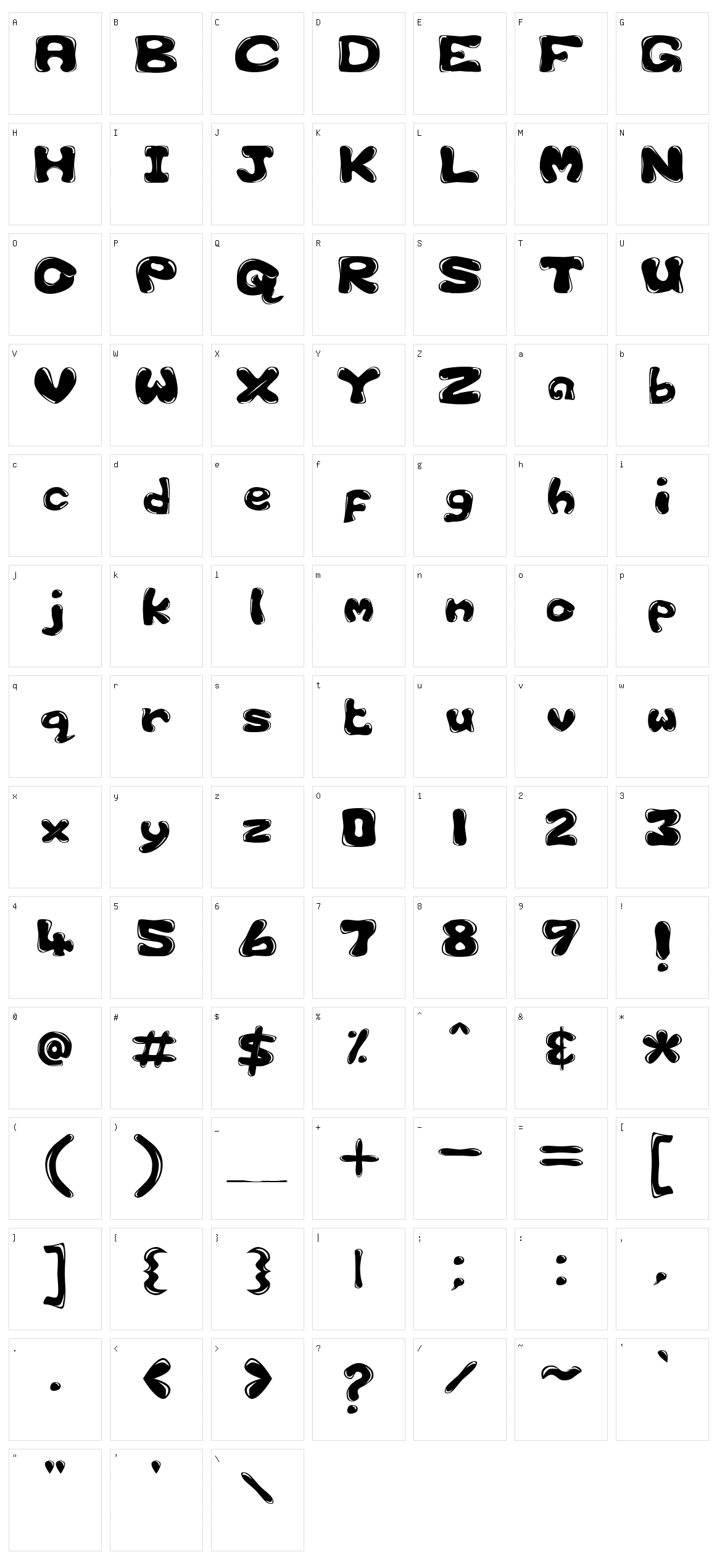
The free font Bubble 1 is carefully designed by Gary Staunton, showcasing a thoughtful balance of creativity and usability and falls under the Cartoon font style. When you download the ZIP file, it contains only 45.76 KB of font files, making it lightweight and quick to download. Please review the license details below to understand permitted usage and distribution rights. If license information is not available, we recommend using this font for personal projects only or contacting the author directly for commercial usage permissions.